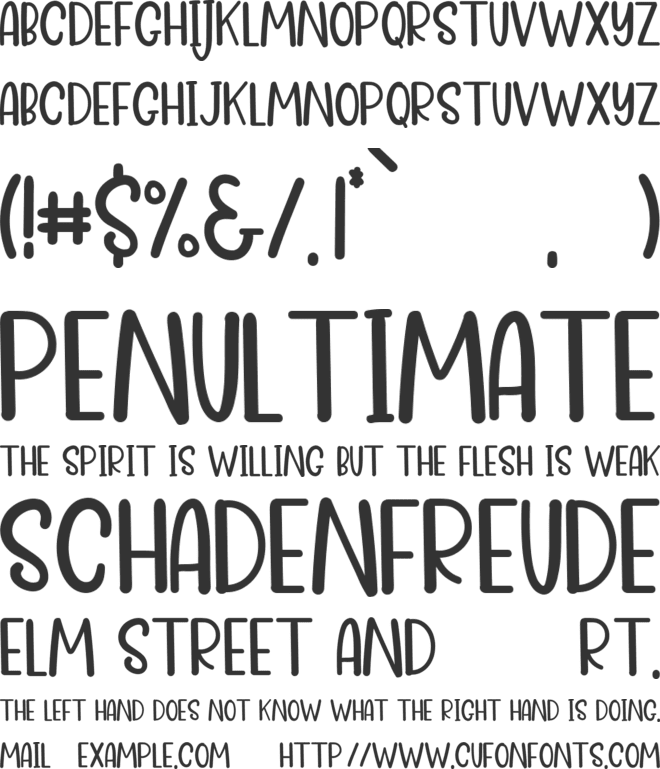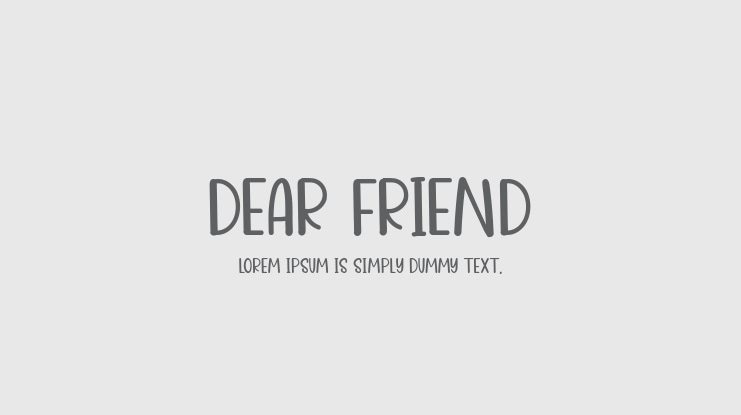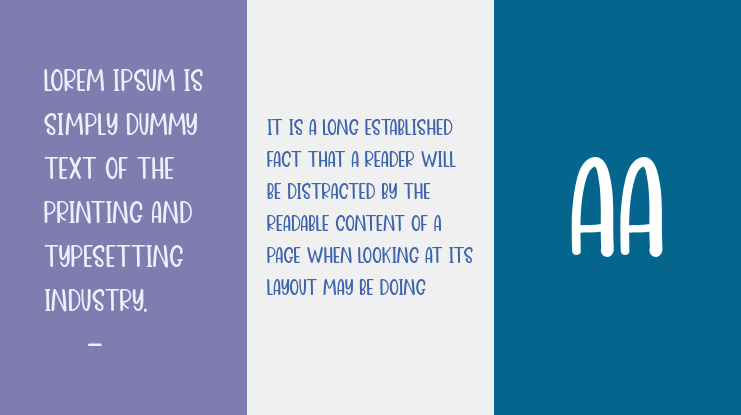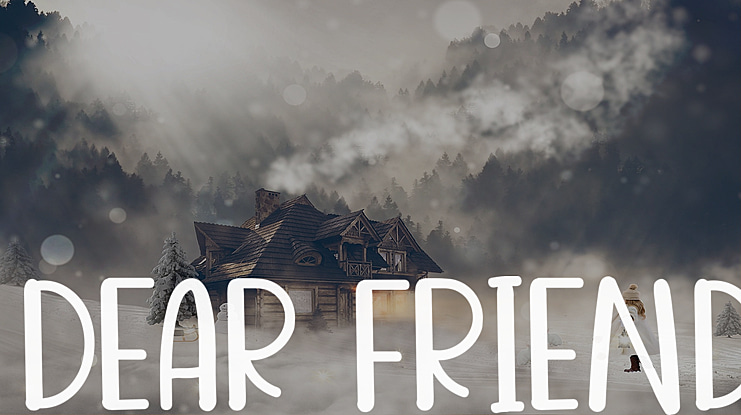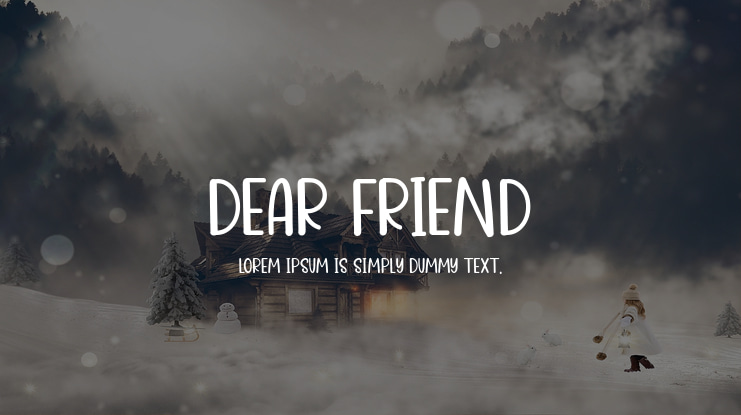
Dear Friend Font
Loveberry is a cute, simple and delicate handwritten font. This font is perfect for children themed designs, especially when combined with bright colors.